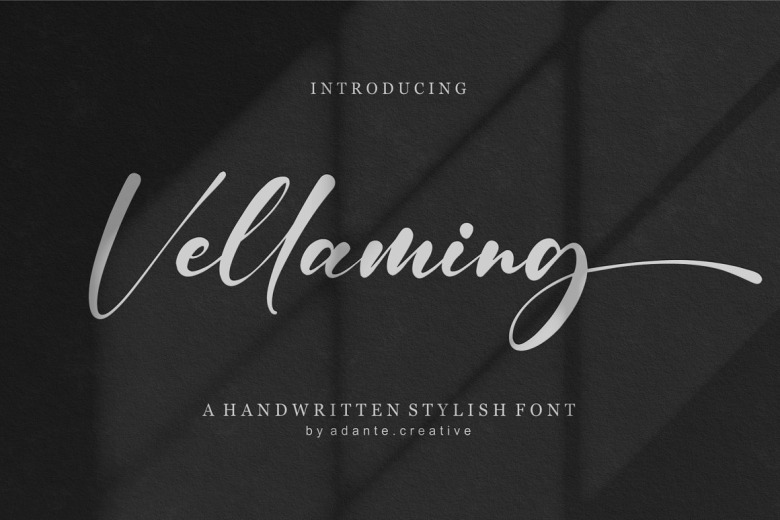
Vellaming Font
Vellaming is a script stylish handwritten font. Vellaming is perfect for product packaging, branding project, magazine, social media, wedding, or just used to express words above the background. This font is PUA encoded which means you can access all of the glyphs and swashes with ease!
Vellaming Handwritten Script Font